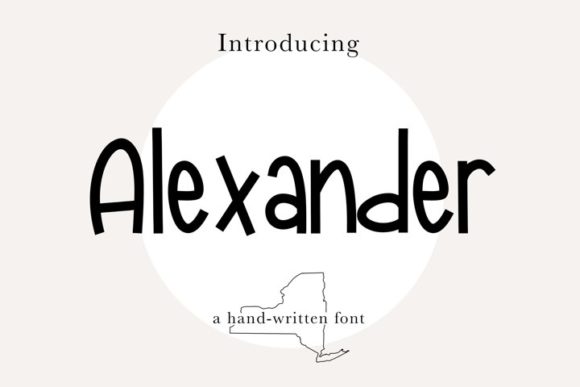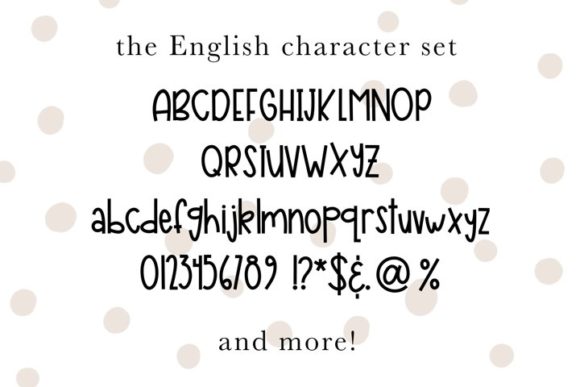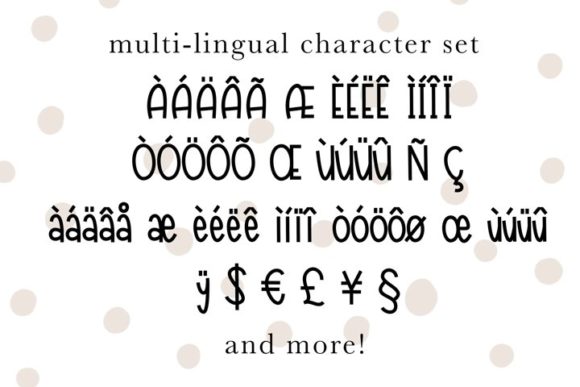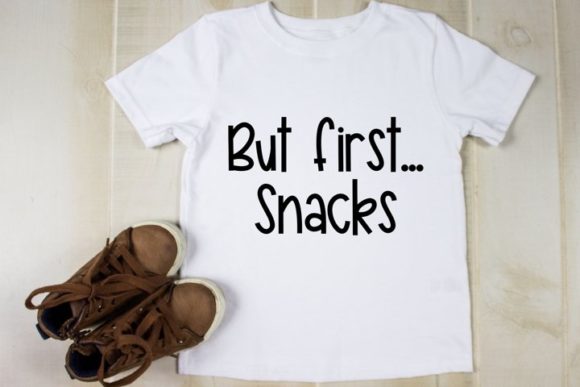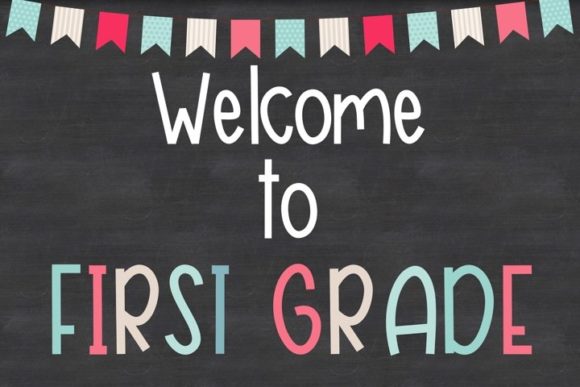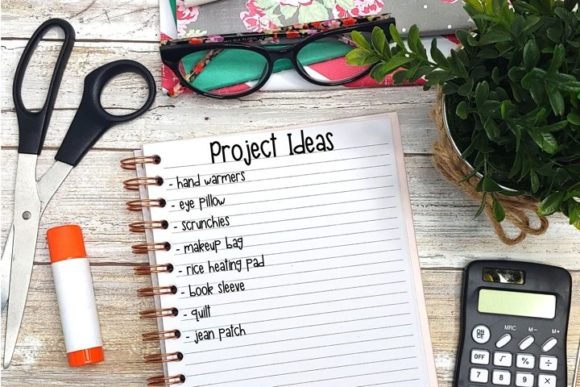
Alexander Font
About Alexander Font
Alexander is a casual handwritten font that brings a relaxed and personal touch to your designs. With its natural and organic strokes, this font is perfect for creating beautiful and great designs that exude authenticity and charm.
The casual nature of Alexander makes it versatile and suitable for a wide range of design projects. Whether you’re working on branding, packaging, social media graphics, invitations, or any other creative endeavor, this font adds a friendly and approachable vibe that resonates with viewers.
The handwritten style of Alexander adds a personal and human touch to your designs, creating a connection with your audience. Its imperfect and irregular letterforms mimic the spontaneity of handwriting, giving your designs a unique and authentic feel. This font is ideal for conveying a sense of warmth, creativity, and informality in your projects.
Alexander allows you to experiment with various design elements. Its casual and relaxed nature pairs well with different colors, textures, and graphic elements, making it easy to create visually appealing compositions. You can use it as a standalone headline font or combine it with other fonts to create interesting typographic combinations.
One of the advantages of Alexander is its readability. Despite its handwritten style, the letterforms are designed to maintain clarity and legibility, ensuring that your message is effectively communicated to your audience. Whether used for short headlines or longer blocks of text, Alexander ensures that your content is easily readable and understood.
Overall, Alexander is a casual handwritten font that brings a personal and friendly vibe to your designs. Its versatility, authenticity, and readability make it a perfect choice for creating beautiful and great designs across various projects. Embrace the natural charm of Alexander and let it add a touch of personality to your creative endeavors.